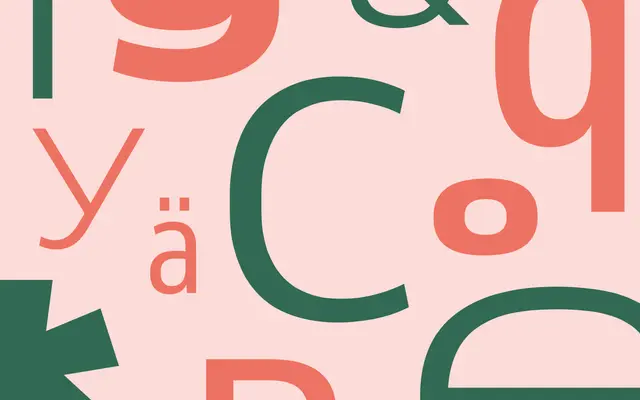
Venn
Dalton Maag · Fernando Caro, Deiverson Ribeiro · 2021
Venn specimen from Dalton Maag
A humanist sans system by Fernando Caro and Deiverson Ribeiro with Weight and Width axes across five widths, tuned for demanding interface and signage work.
A humanist sans system by Fernando Caro and Deiverson Ribeiro built around two variable axes. Weight runs Light to XBold across five widths, from Condensed through SemiCondensed, Normal and SemiExtended to Extended, giving twenty-five static styles plus full variable coverage. Open counters and clear shapes prioritise legibility in demanding environments such as interfaces, dashboards, wayfinding and broadcast.
Dalton Maag describe Venn as a humanist sans designed for high performance in demanding environments, with open counters and clear shapes for legibility and Weight and Width axes in variable font format for flexibility.